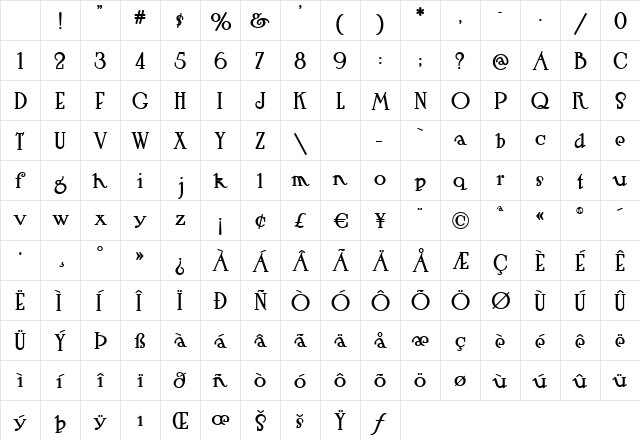
Complete HutSutRalston Regular glyph index. Displaying only characters natively supported by HutSutRalston Regular font.
HutSutRalston is a composed and adaptable typeface that performs quietly and consistently across a wide range of design contexts.